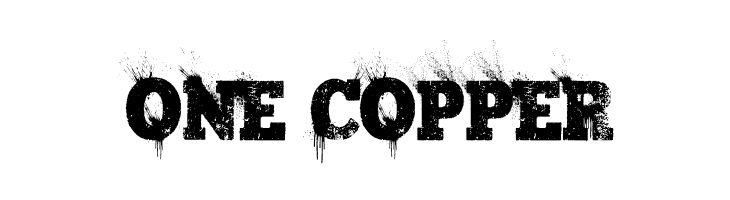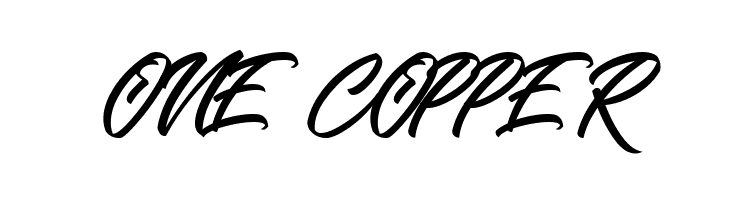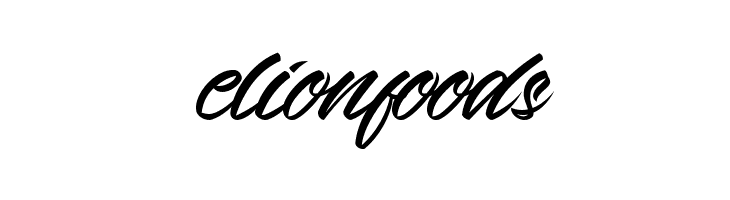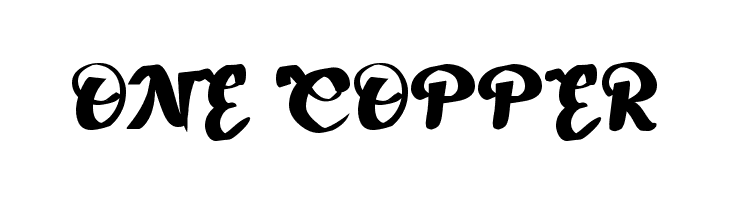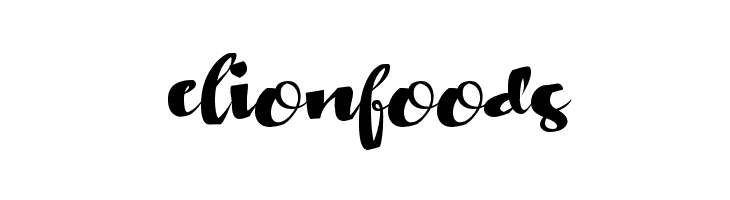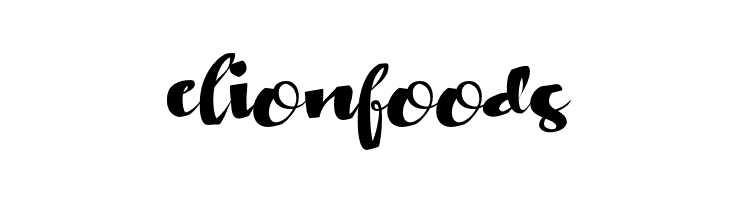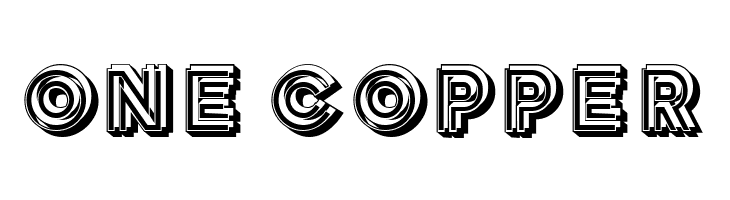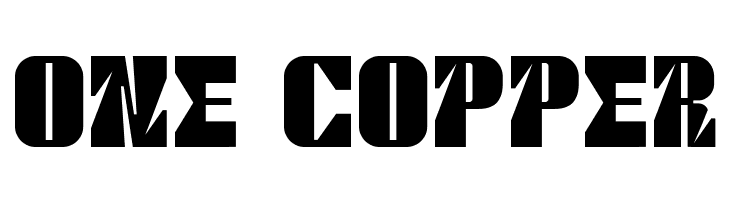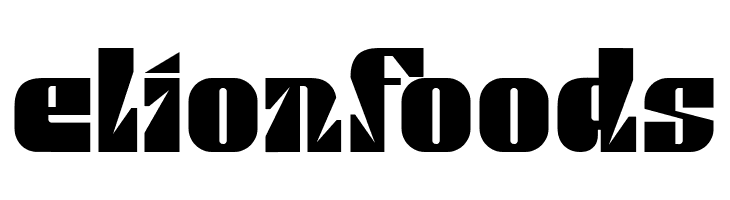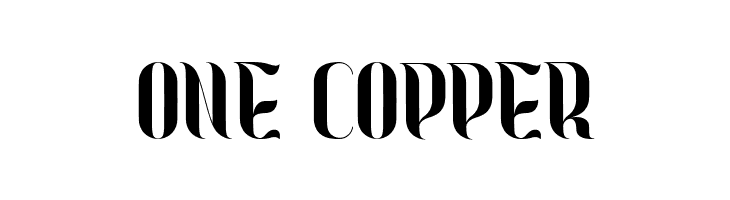
A bold, jagged font with a graffiti-inspired, energetic style.
A bold, energetic script font with a hand-drawn, dynamic style.
A bold, handwritten-style font with dynamic and expressive characters.
A bold, expressive handwritten font with dynamic strokes and a modern flair.
A playful handwritten font with flowing, interconnected letterforms and a whimsical style.
A lively and expressive script font with fluid, cursive strokes.
A bold, brush-style script font with dynamic strokes and a lively, artistic feel.
A playful, bold handwritten font with dynamic and irregular strokes.
A graceful and sophisticated script font with dynamic contrast.
A playful, romantic script font with heart embellishments and flowing cursive style.
A bold, expressive script font with flowing, interconnected letterforms.
A bold, expressive script font with ornate uppercase and fluid lowercase letters.
A bold, textured font with a rugged, distressed appearance.
A bold, angular display typeface with geometric cuts.
A bold, blocky font with a strong, impactful presence.
A modern, geometric font with an inline style and clean, sharp lines.
A geometric and ornamental font with sharp lines and intricate inner patterns.
A bold, geometric font with a modern and impactful style.
Bold, geometric font with a three-dimensional shadow effect.
A bold, Western-style font with strong serifs and a rugged appearance.
A bold, distressed slab serif font with a vintage Western aesthetic.
A bold, classic serif font with strong, elegant strokes.
A bold, italic serif font with a classic and elegant style.
An elegant serif italic font with smooth, flowing curves and a classic appearance.
A classic serif font with elegant, balanced letterforms and medium contrast.
A sophisticated script font with flowing, interconnected letters and high contrast strokes.
A high-contrast, elegant font with dramatic strokes and sophisticated curves.
A bold, high-contrast serif font with a classic yet modern style.
A dynamic and elegant italic font with high contrast and smooth letterforms.
A bold, three-dimensional font with a layered, geometric design.
A clean, modern sans-serif font with excellent readability and uniform appearance.
A graceful and elegant script font with fluid, connected letters.
A dynamic and elegant script font with flowing letterforms and smooth connections.
A bold, cursive script font with fluid, connected strokes and elegant flourishes.